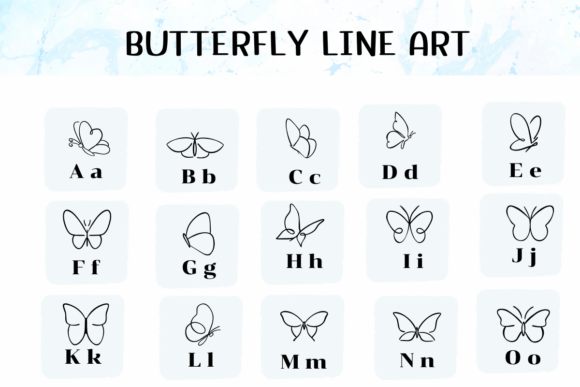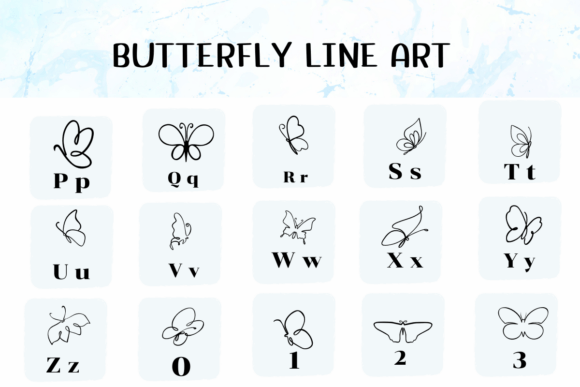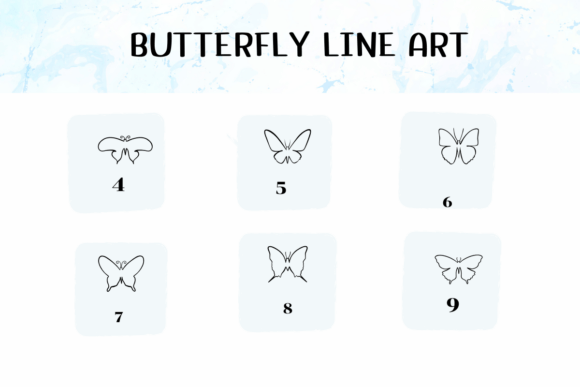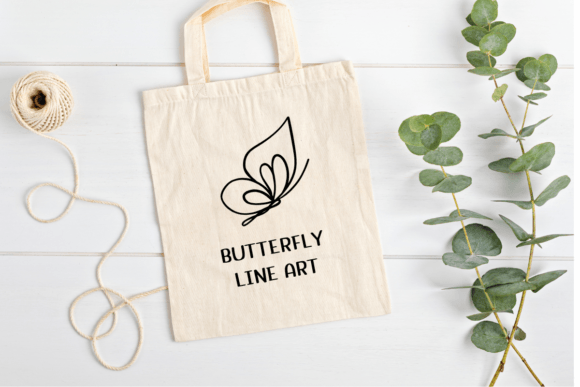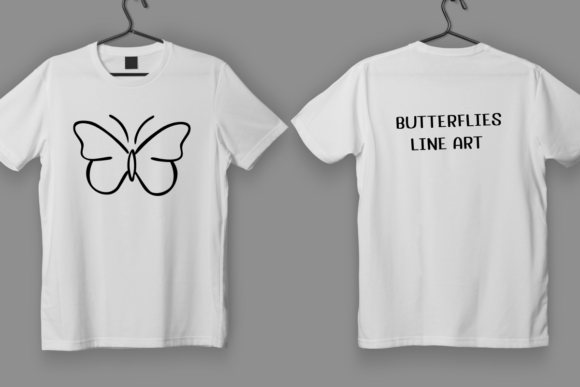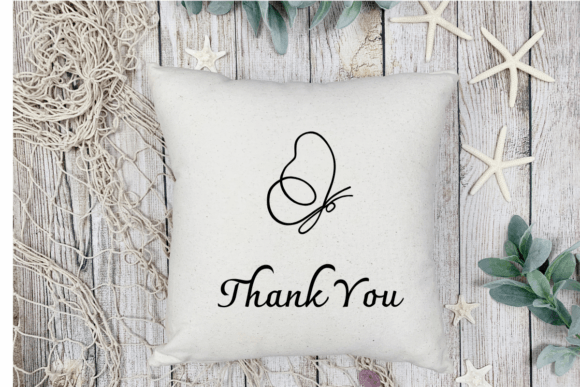
One of the tools that can help bring your creative vision to life is the Butterfly Line Art Font. This charming dingbat font is filled with adorable butterfly designs, each one a unique and simple outline that’s perfect for decorating invitations, crafts, and other creative projects. Whether you’re a seasoned designer or a hobbyist, the Butterfly Line Art Font is a valuable asset that can add a whimsical touch to your work.
With its ease of use and charming designs, the Butterfly Line Art Font is a must-have for anyone looking to add a little extra magic to their projects.
Butterfly Line Art Font Key Features
- Unique Characteristics: The font features intricate line art and delicate details, making it ideal for designs that require a touch of elegance and sophistication.
- Line Art Style: The font’s line art style is reminiscent of traditional hand-drawn illustrations, adding a human touch to digital designs.
Butterfly Line Art Font Review
- Unique and whimsical design: The font’s line art style gives it a charming, hand-drawn feel that’s perfect for creative projects.
- Highly customizable: The font offers a range of weights and styles, making it easy to adapt to different design needs.
- Legible at various sizes: Despite its delicate design, the font remains readable even at smaller sizes.
- May not be suitable for body text: While the font is great for headlines and titles, it may be too decorative for large blocks of body text.
- Lack of consistency: Some characters may not be perfectly aligned or have varying line weights, which can be distracting.
Overall, I think the Butterfly Line Art Font is a great choice for designers who want to add a touch of whimsy and personality to their projects. While it may have some limitations, its unique design and high level of customization make it a valuable addition to any design toolbox.
Use the Butterfly Line Art Font to add a whimsical touch to your designs.
Combine it with other creative fonts to create a unique look.
Experiment with different text arrangements and colors to achieve the desired effect.
The Butterfly Line Art Font is ideal for:
Children’s book illustrations
Wedding invitations
Party decorations
Any design that requires a playful and whimsical touch